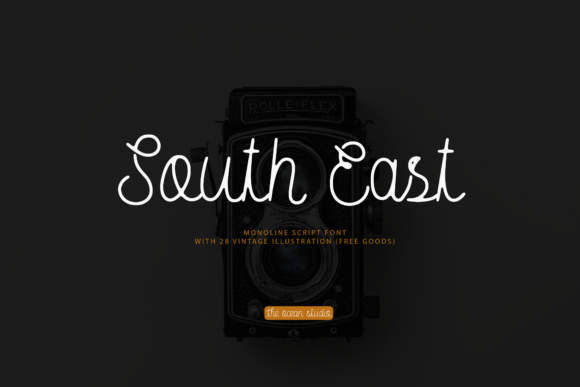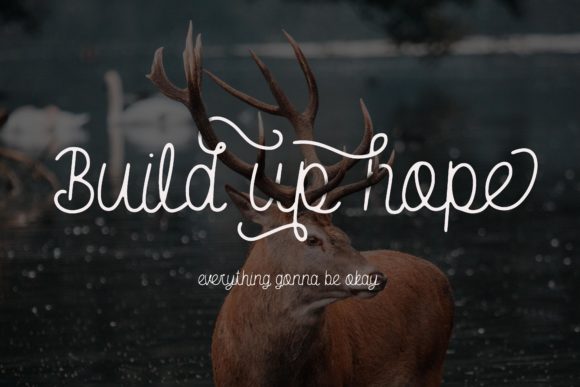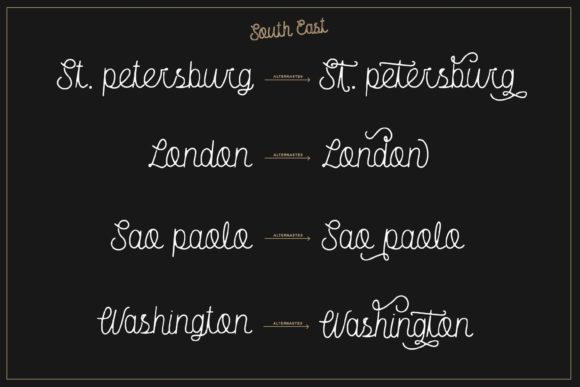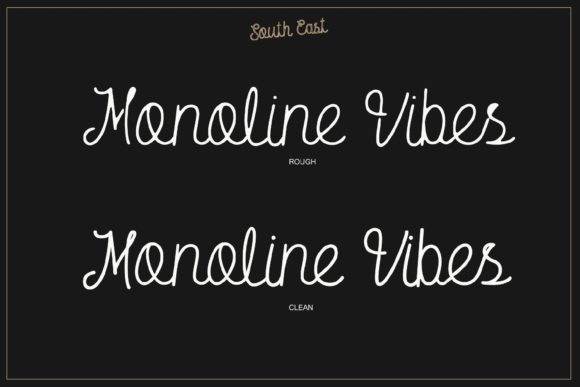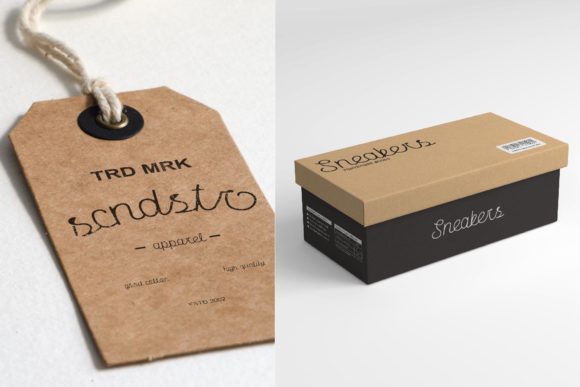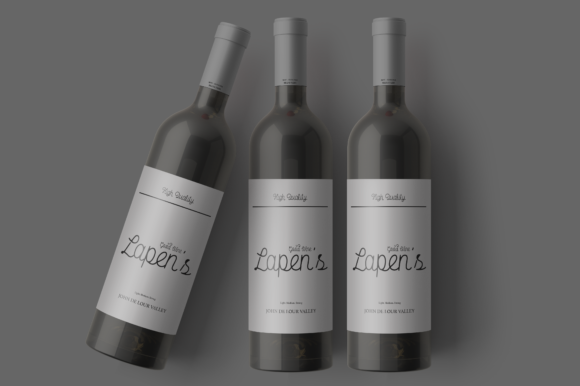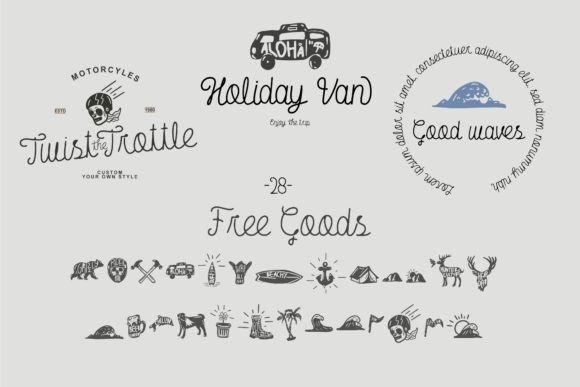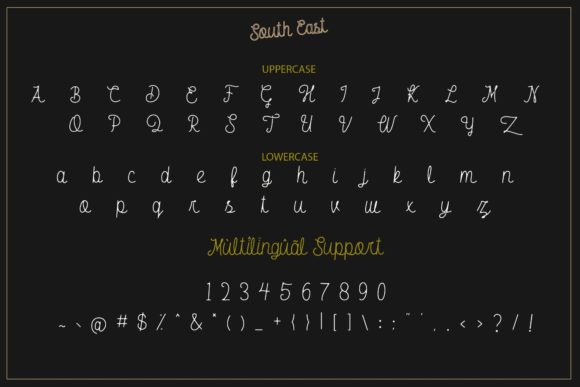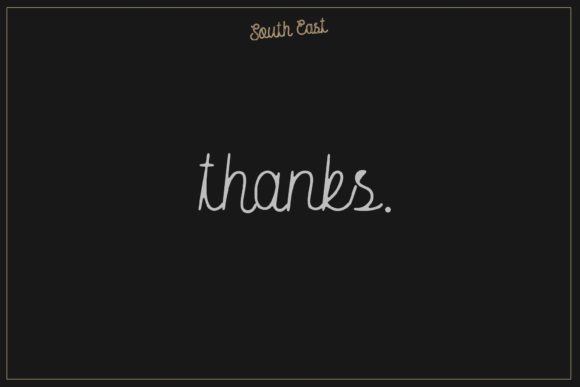
HomeScript FontsSouth East Font Script Fonts South East Font FacebookXPinterestWhatsApp South East Font Poster 2 South East Font Poster 3 South East Font Poster 4 South East Font Poster 5 South East Font Poster 6 South East Font Poster 7 South East Font Poster 8 South East Font Poster 9 About South East Font South East is a bold monoline script that will add a cool vibe to your next design project! DOWNLOAD ON CREATIVE FABRICAThis font is sold and delivered by Creative Fabrica. Font Canyon may earn a commission if you buy through this link. People also explored Amorlatos Font Antara Script Font Oktober Font Albana Font YWFT Matter Saturday Font Grace Lotus Mandala Monogram Font Kelly Font Little Monster Font 299 0 TagsSouth East Font Previous articleHappy Birthday FontNext articlePurelove Font LEAVE A REPLY Cancel reply Comment: Please enter your comment! Name:* Please enter your name here Email:* You have entered an incorrect email address! Please enter your email address here Website: Save my name, email, and website in this browser for the next time I comment. Personal Use Free Dimensional Look71 Personal Use Free Read more about this font Cloudy Night Personal Use Free Read more about this font Axaxax Bold Personal Use Free Read more about this font Harshita Personal Use Free Read more about this font BLOG The 10 Best Handwriting Fonts to Add Personality to Your Designs 10 of the Best Handwriting Fonts for Adding Personality to Your Designs There will undoubtedly be no other better choice than handwriting fonts to give... Modern Sans-Serif Fonts That Brands Love in 2025 5 Fonts That Will Dominate Design Trends in 2026 Exploring Font Trends